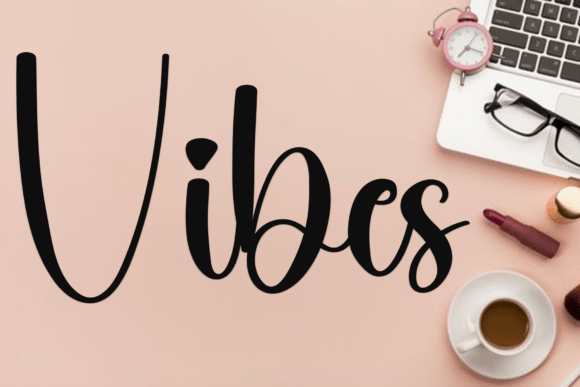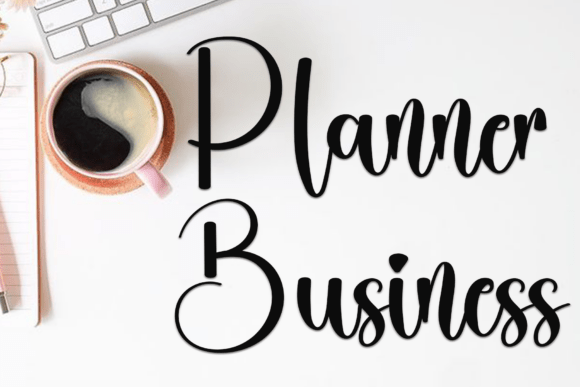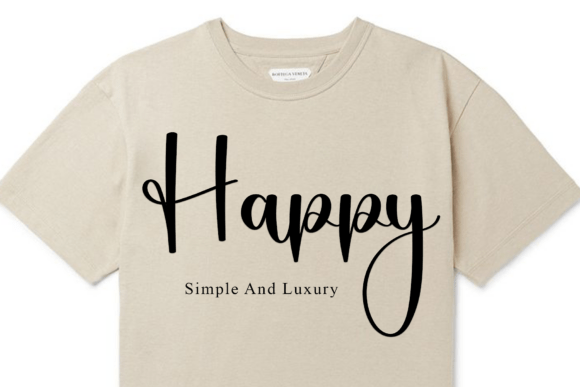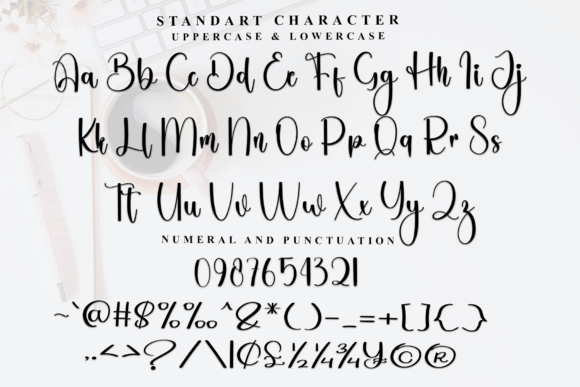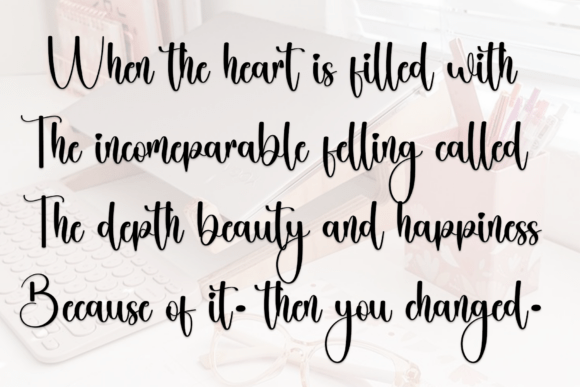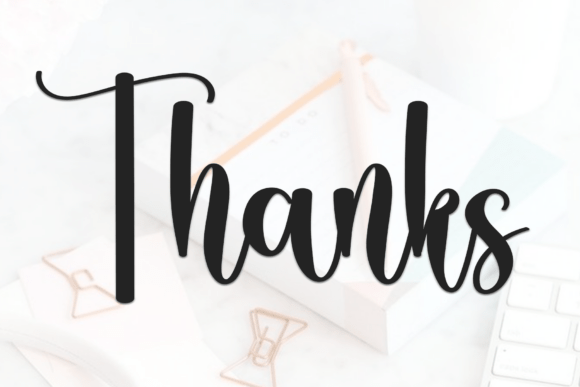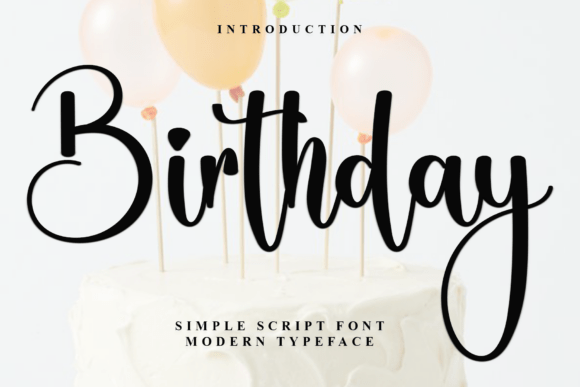
Introducing Birthday Font: The Perfect Addition to Your Design Arsenal
Are you tired of using the same old fonts in your design projects? Look no further than Birthday Font, a beautiful and eye-catching typeface that’s sure to elevate your creative works. With its soft, unique touch and distinctive strokes, this font is perfect for designers, crafters, and artists looking to add a special something to their projects.
A Font that Stands Out from the Crowd
Birthday Font is designed with a unique and special character that sets it apart from other fonts. Its soft and natural style makes it perfect for a wide range of design projects, from crafts and DIY projects to professional design works. The font’s distinctive strokes give it a personal touch, making it meaningful and versatile for future use.
Endless Possibilities with Birthday Font
One of the best things about Birthday Font is its versatility. With a wide range of characters, you can use it to create unique and eye-catching designs that will appeal to many audiences. Whether you’re working on a design project, crafting a handmade gift, or creating digital art, this font is perfect for adding a personal touch.
Enhance Your Designs with Birthday Font
With Birthday Font, you can enhance your designs and make them more appealing to your audience. The font’s natural style and unique character make it perfect for a wide range of products, from greeting cards and invitations to posters and social media graphics. Whether you’re a professional designer or a crafter, this font is sure to become a staple in your design arsenal.
Birthday Font is a must-have for designers and crafters looking to add a special touch to their projects. The font’s versatility and compatibility make it perfect for use in a wide range of creative works, from digital art and design projects to handmade crafts and DIY projects.
Tips for Using Birthday Font
- Use Birthday Font to add a personal touch to your designs, whether you’re working on a professional project or a handmade craft.
- Experiment with different font sizes and colors to create unique and eye-catching designs.
- Pair Birthday Font with other fonts to create a unique and stylish look.